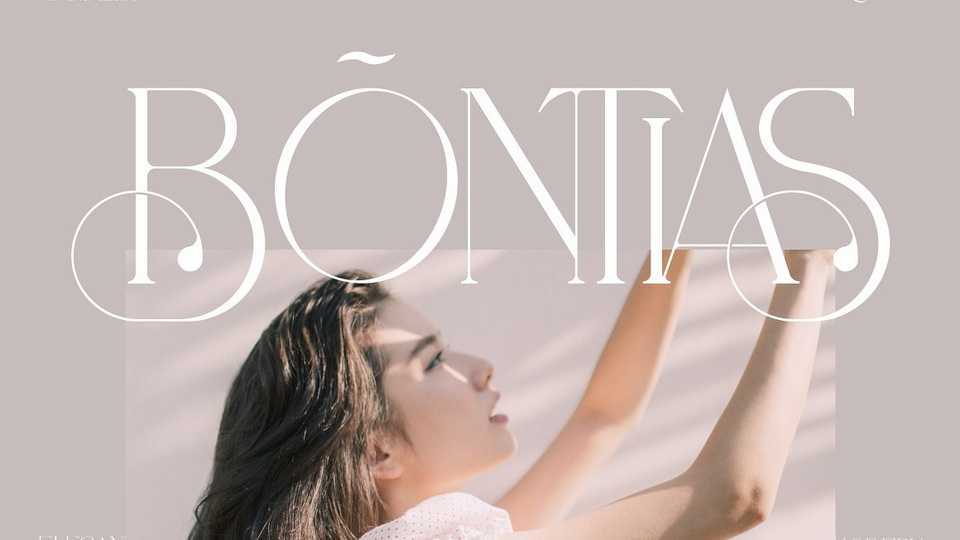
Download Bontias font, an elegant and delicate serif typeface to add a luxury spark to any design project that you wish to create. Bontias font is perfect for logos, book or movie titles, fashion brand, magazine, clothes, lettering, quotes, and so much more.